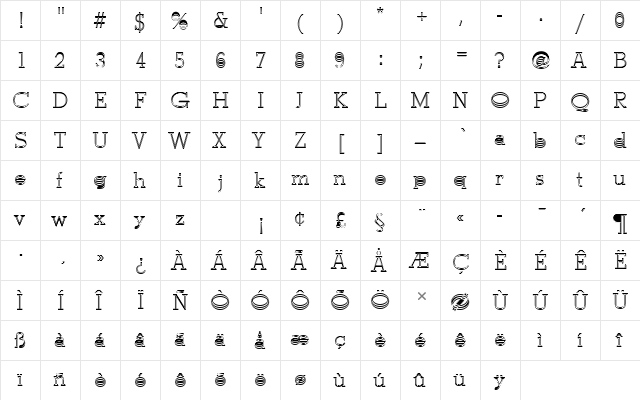
StymieTLigIn1 Regular Font Preview
StymieTLigIn1 Regular
Design Context for StymieTLigIn1 Typeface
StymieTLigIn1 offers clean, dependable letterforms without strong stylistic allegiance, making it a practical choice for designers who need flexibility.
Pro Tip: Use StymieTLigIn1 in both headline and body roles to test its range before committing to a single application.